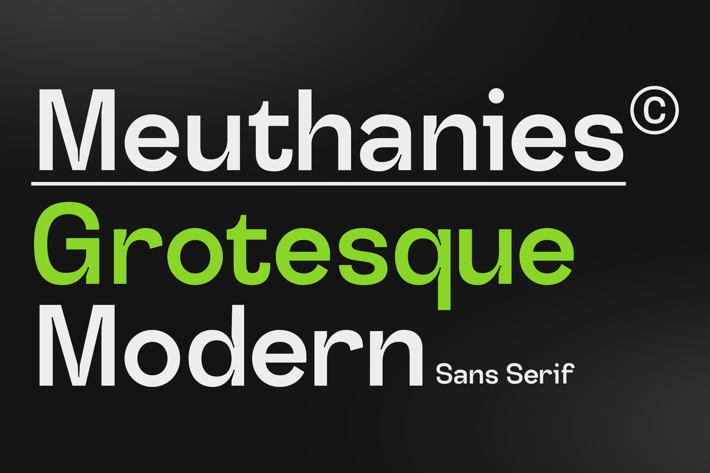
Meuthanies Typeface
Introducing Meuthanies Grotesque Modern
a versatile and contemporary sans-serif typeface that combines clean lines with a bold aesthetic. This font is perfect for a wide range of design projects, from branding and logos to editorial design and web interfaces. Its sleek and modern appearance ensures your text stands out, making it ideal for both digital and print mediums.
- Typeface: Grotesque, Modern
- Character Set: Uppercase, Lowercase, Numerals, Punctuation
- Multilingual Support: Includes extensive language support with special characters and diacritics for international users.
- Design Compatibility: Ideal for branding, headlines, posters, websites, presentations, and more.
- Readability: High readability in both large and small sizes, ensuring your text is clear and engaging.
- Uppercase Letters: ABCDEFGHIJKLMNOPQRSTUVWXYZ
- Lowercase Letters: abcdefghijklmnopqrstuvwxyz
- Numerals & Punctuation: 0123456789, !@#$%^&*()_+[]{}|;:',.?/-
a versatile and contemporary sans-serif typeface that combines clean lines with a bold aesthetic. This font is perfect for a wide range of design projects, from branding and logos to editorial design and web interfaces. Its sleek and modern appearance ensures your text stands out, making it ideal for both digital and print mediums.
- Typeface: Grotesque, Modern
- Character Set: Uppercase, Lowercase, Numerals, Punctuation
- Multilingual Support: Includes extensive language support with special characters and diacritics for international users.
- Design Compatibility: Ideal for branding, headlines, posters, websites, presentations, and more.
- Readability: High readability in both large and small sizes, ensuring your text is clear and engaging.
- Uppercase Letters: ABCDEFGHIJKLMNOPQRSTUVWXYZ
- Lowercase Letters: abcdefghijklmnopqrstuvwxyz
- Numerals & Punctuation: 0123456789, !@#$%^&*()_+[]{}|;:',.?/-